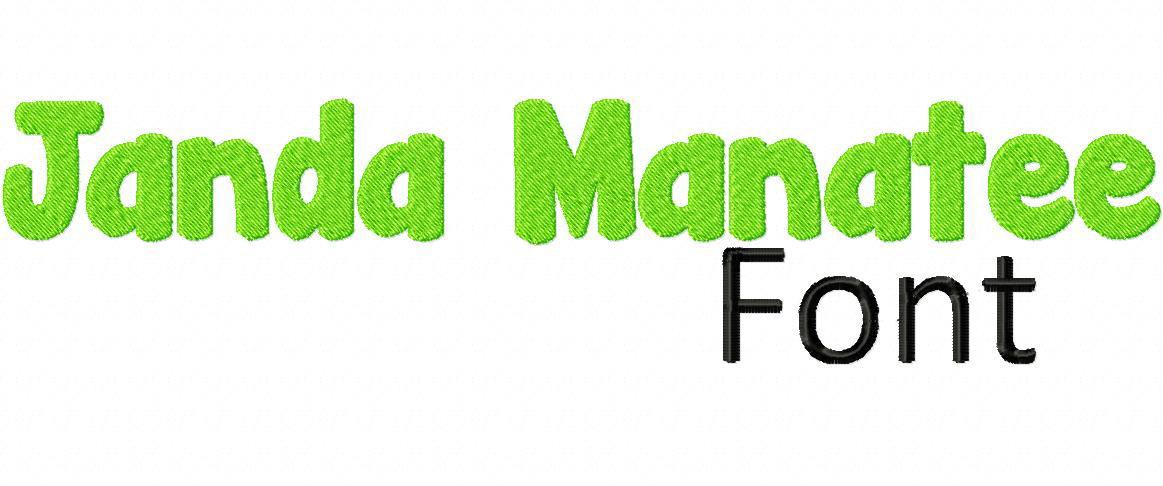
The Janda Manatee machine embroidery font set includes all Uppercase and Lowercase Letters, Numbers and Bonus Punctuation in all of the following sizes: 1" 2" & 3"
Font Created by Kimberly Geswein and digitized by BlastoStitch.com